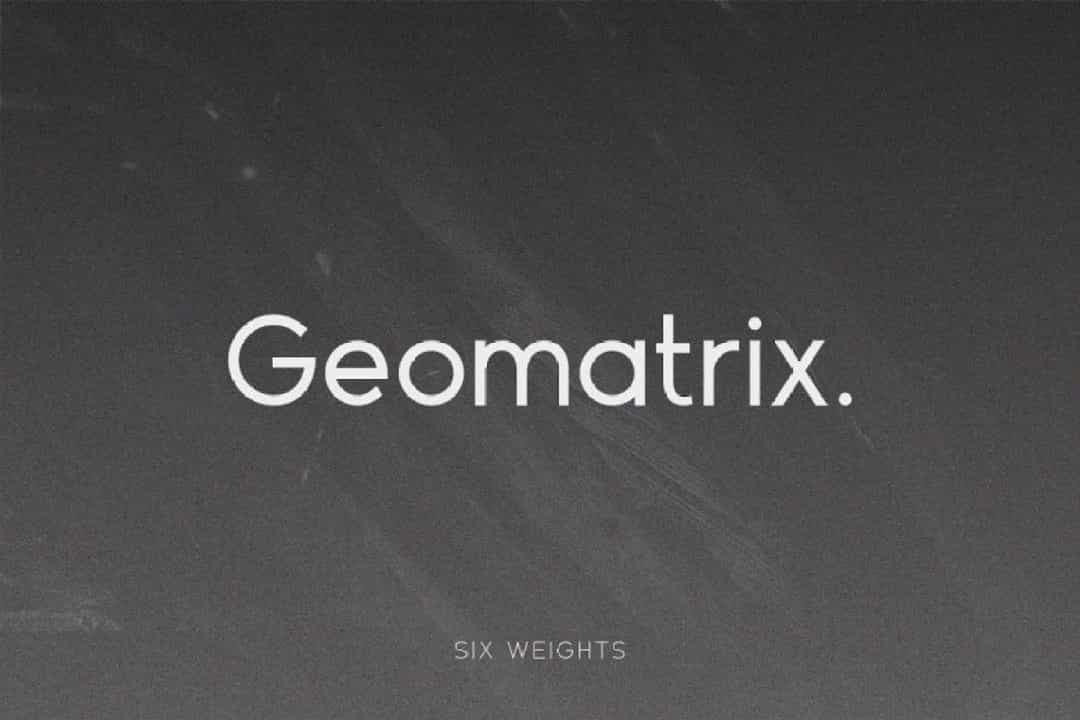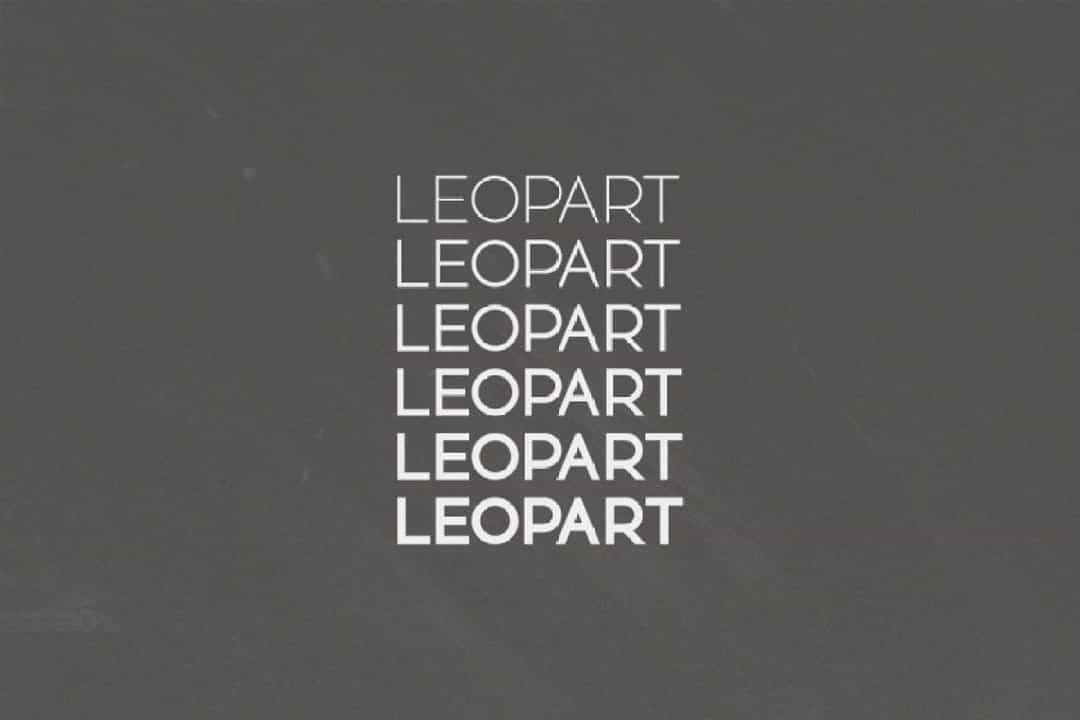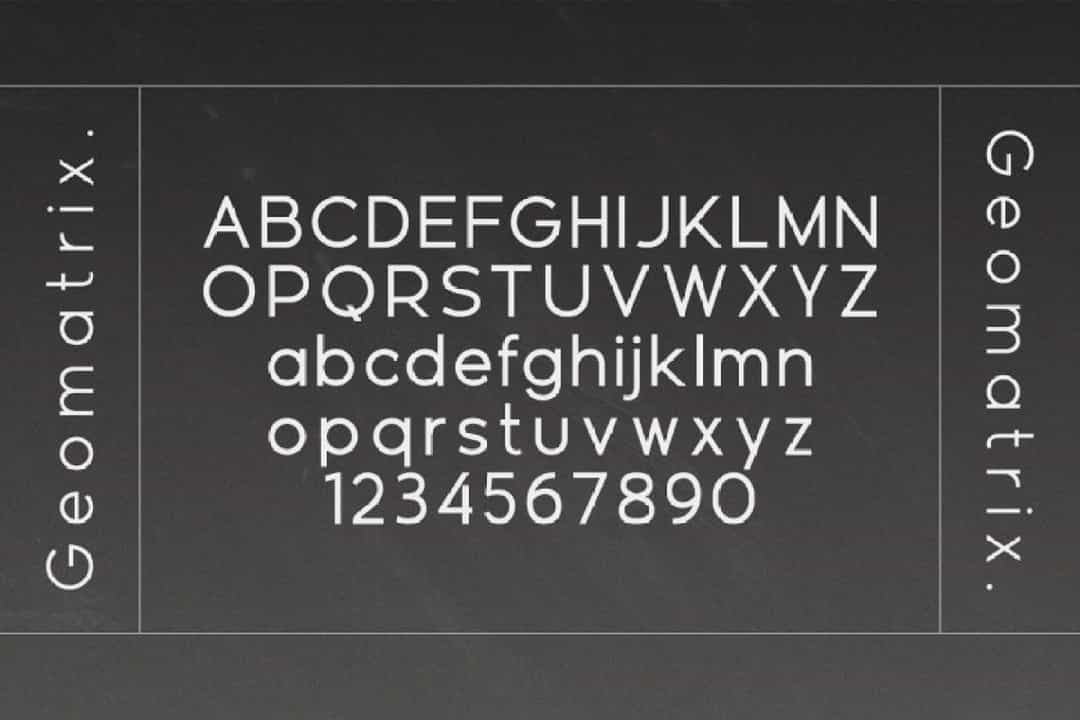
Geomatrix can be described as an uncluttered geometric sans serif font family that embraces modernity and the harmony of curves. With very open terminals that make this font modern and friendly. Geomatrix font family can also meet the requirements of professionals seeking uncluttered geometric fonts for publications, posters and branding websites.